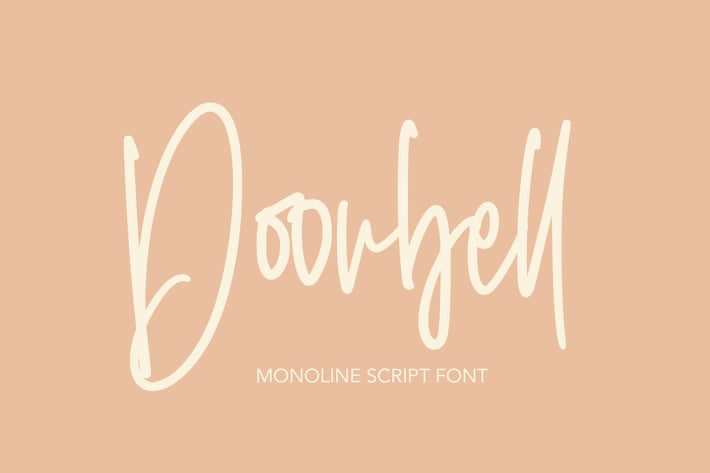
Doorbell - Monoline Script Font
Doorbell - Monoline Script Font that has a distinctive character that is very thick and elegant to use
Doorbell is a relaxed and flowing Handwritten Font. Incredibly versatile, this font fits a wide pool of designs, elevating them to the highest levels. Add this font to your favorite creative ideas and notice how it makes them come alive!